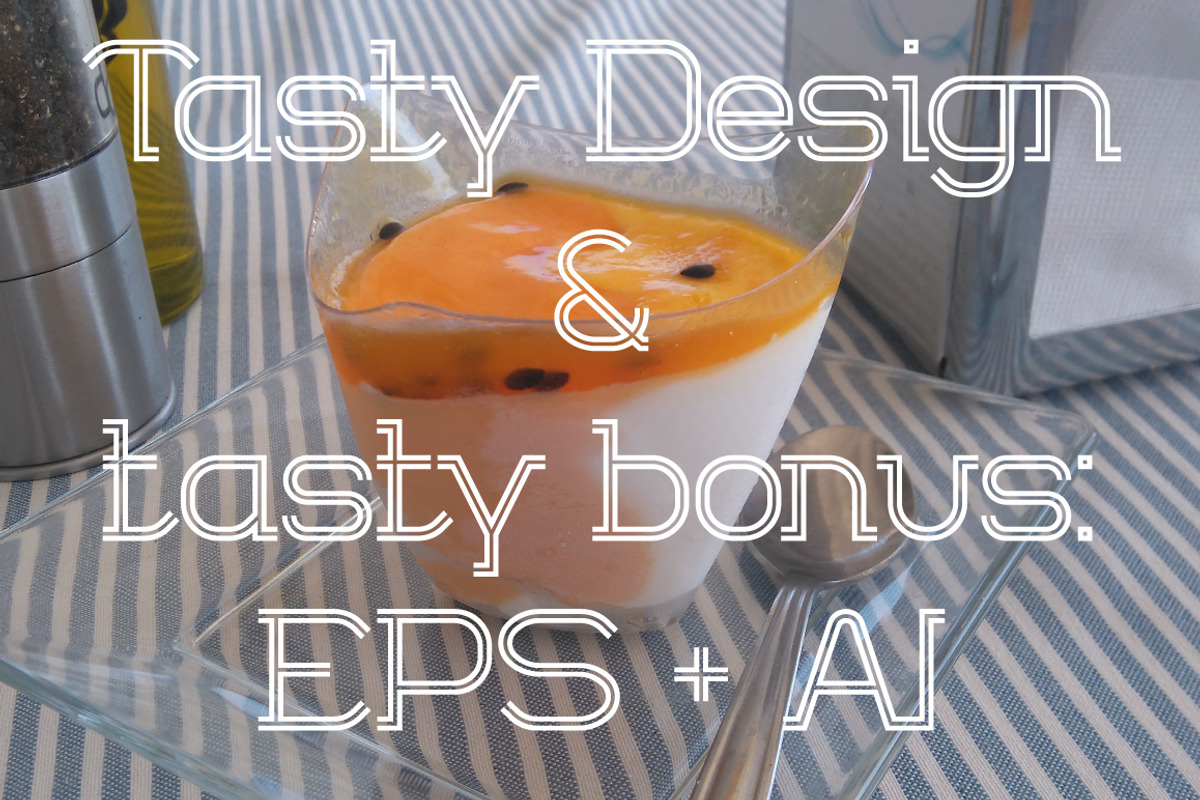
Twoline font two line symbols
Twoline font two line symbols by Guten Tag Vector is a font selected for branding, posters, packaging, typography.
- Twoline font is readable font that consists of uppercase and lowercase letters, numbers special and non-English characters.
Twoline font two line symbols by Guten Tag Vector fits naturally into Branding, posters, packaging, typography.